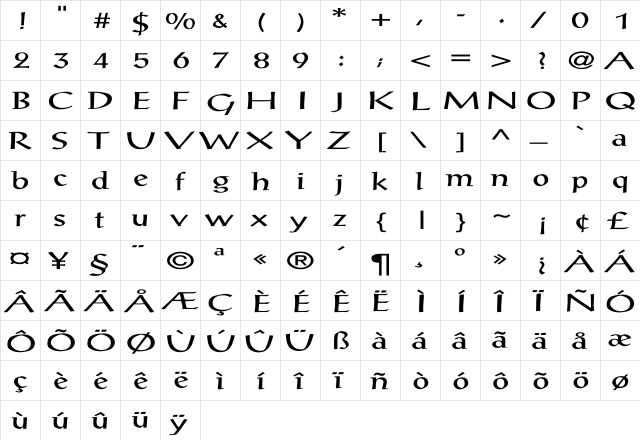
PostAntiqua-Roman Ex Regular
Design Context for PostAntiqua-Roman Ex Typeface
PostAntiqua-Roman Ex is a composed and adaptable typeface that performs quietly and consistently across a wide range of design contexts.